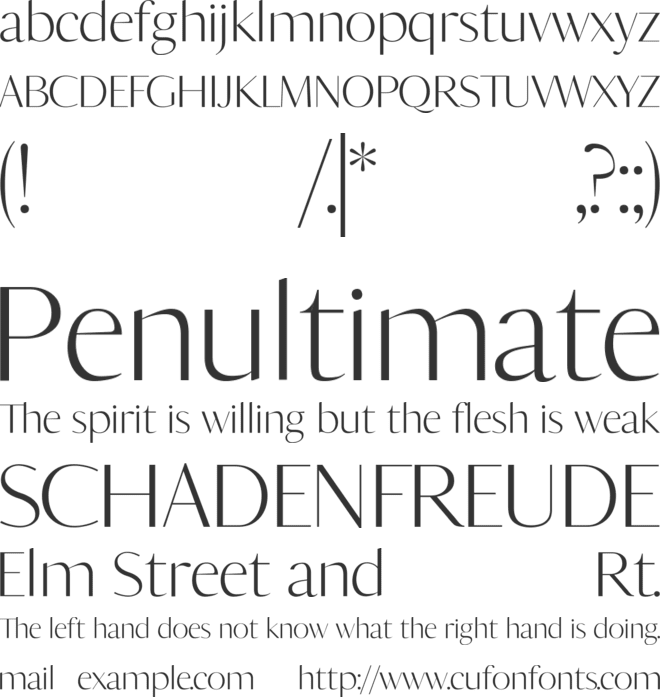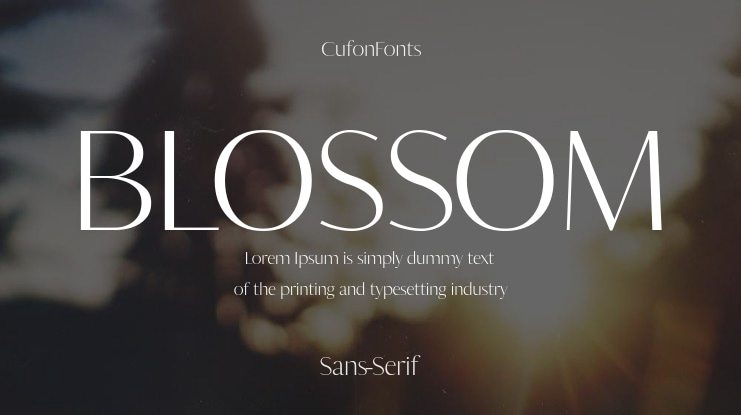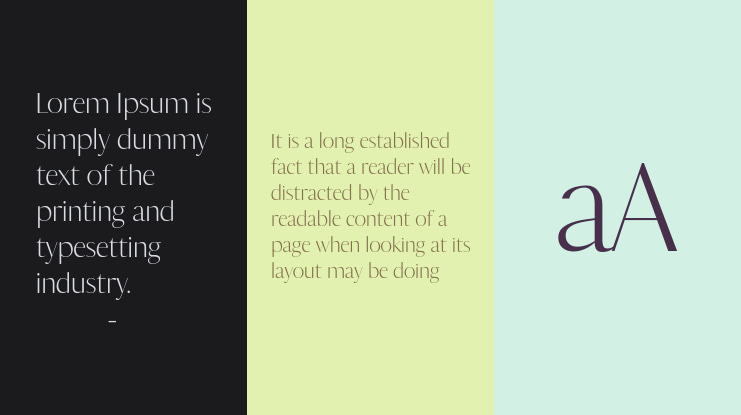
BLOSSOM Font Family
Blossom is a delicate sans serif with multilingual support—perfect for feminine branding, minimalist packaging, and editorial elegance.